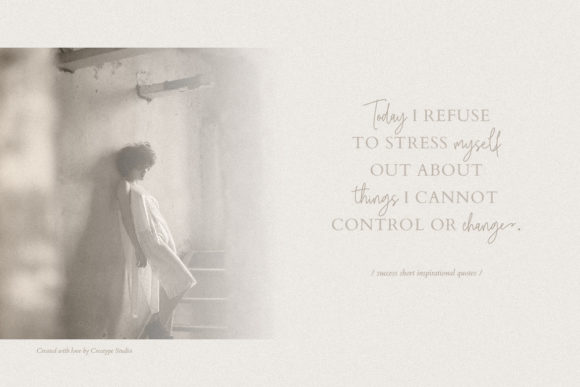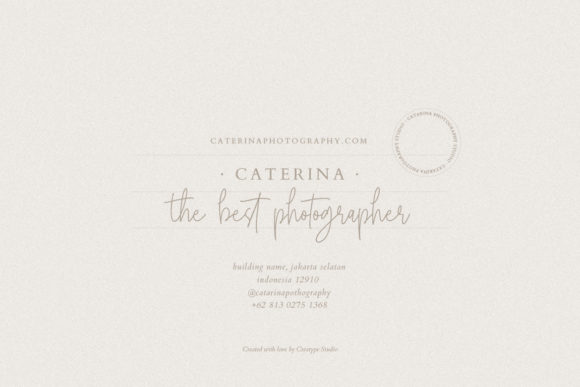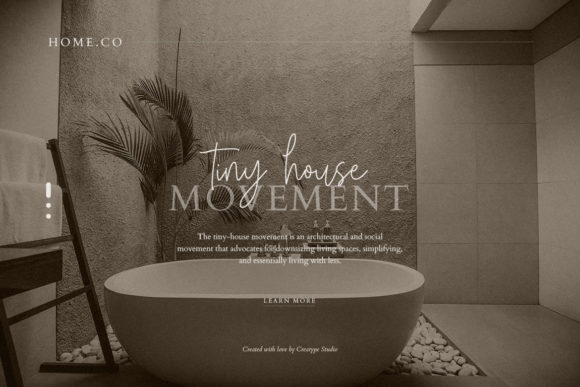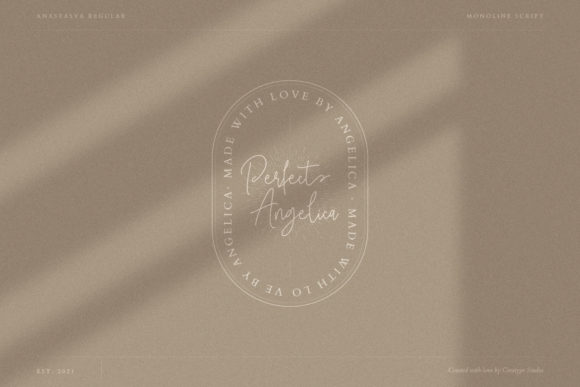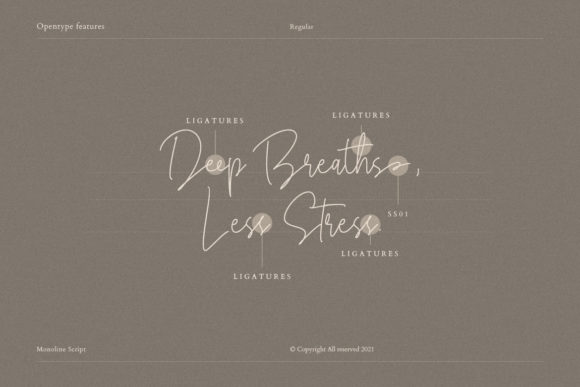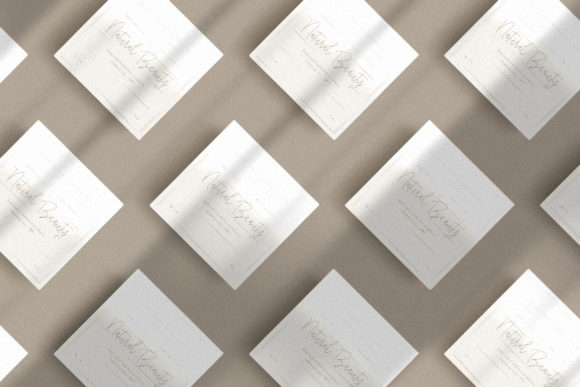
Introducing Anastasya Script Font: Elevate Your Designs with Elegance
Are you a designer, crafty enthusiast, or simply someone who appreciates beautiful typography? Look no further than the stunning Anastasya Script Font. This gorgeous script font is designed to add a touch of sophistication and refinement to any project, making it perfect for a wide range of applications.
The Beauty of Anastasya Script
Anastasya Script is a beautiful and refined script font that boasts a classy, elegant, and modern look. Its flowing lines, intricate details, and balanced proportions make it a true masterpiece of typographic design. Whether you’re looking to create a logo, branding materials, invitations, stationery, wedding designs, social media posts, or anything in between, Anastasya Script is the perfect choice.
What Sets Anastasya Script Apart
So, what makes Anastasya Script so special? For starters, it’s PUA (Private Use Area) encoded, which means you can access all of the amazing glyphs and ligatures with ease. This font is designed to provide you with a wide range of typographic options, allowing you to add a personal touch to your designs and make them truly unique.
With Anastasya Script, the design possibilities are endless. Here are just a few ideas to get you started:
- Logos and Branding: Create a lasting impression with a custom logo that exudes elegance and sophistication.
- Invitations and Stationery: Add a touch of refinement to your invitations, greeting cards, and stationery.
- Wedding Designs: Make your wedding designs truly unforgettable with Anastasya Script’s beautiful, flowing lines.
- Social Media Posts: Elevate your social media presence with stunning graphics and typography.
- Crafting and Scrapbooking: Add a personal touch to your crafts and scrapbooking projects with this gorgeous script font.
Why Choose Anastasya Script?
So, why should you choose Anastasya Script over other script fonts? Here are just a few reasons:
- Unique and Versatile: Anastasya Script is a one-of-a-kind font that can be used for a wide range of projects.
- Ease of Use: With PUA encoding, you can access all of the font’s glyphs and ligatures with ease.
- High-Quality Design: Anastasya Script is designed to provide a beautiful, refined look that’s sure to impress.
- Time-Saving: With Anastasya Script, you can create stunning designs in no time, saving you time and effort.
In conclusion, Anastasya Script Font is a beautiful and refined script font that’s perfect for designers, crafty enthusiasts, and anyone looking to add a touch of elegance to their projects. With its classy, elegant, and modern look, PUA encoding, and endless design possibilities, Anastasya Script is a must-have for anyone who appreciates beautiful typography. So why wait? Download Anastasya Script Font today and elevate your designs to the next level!